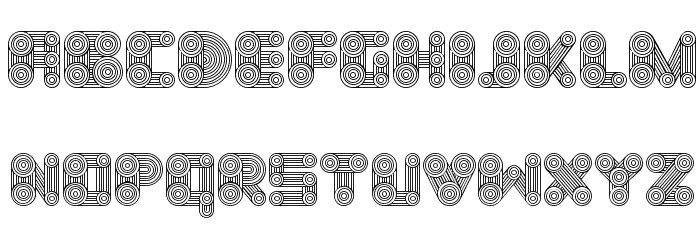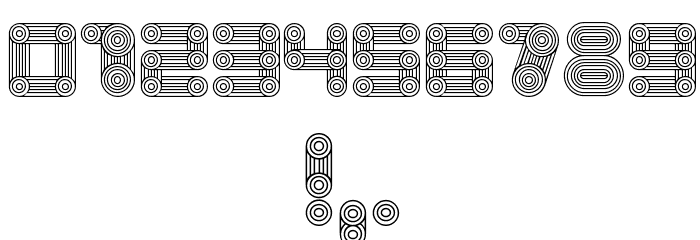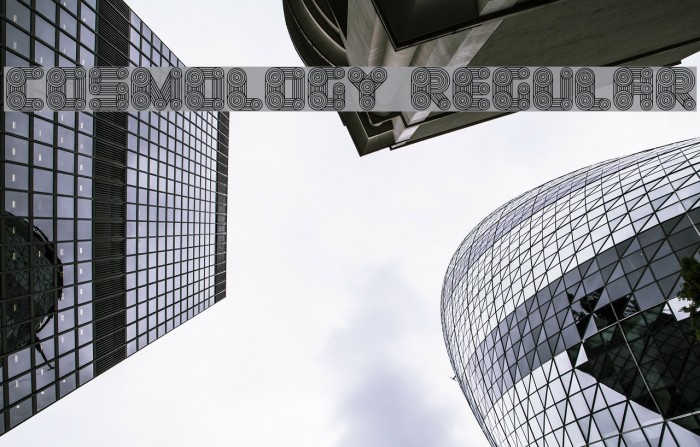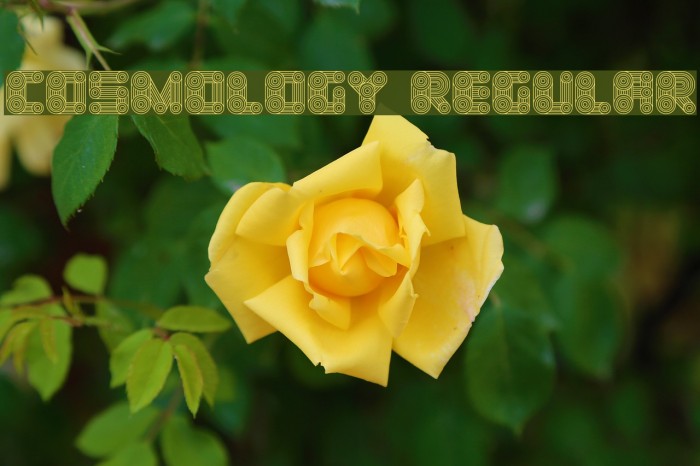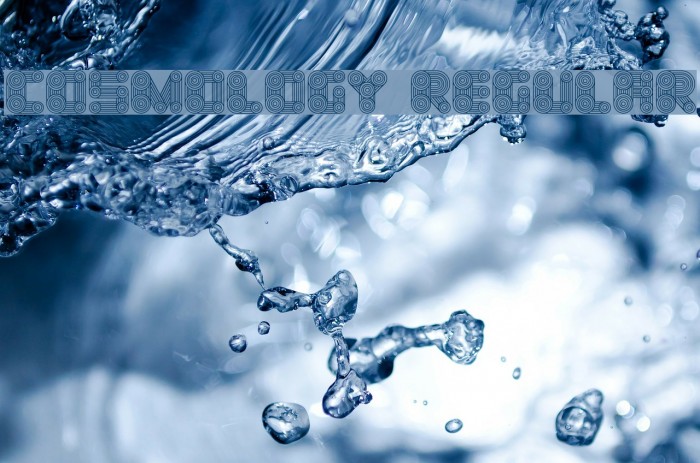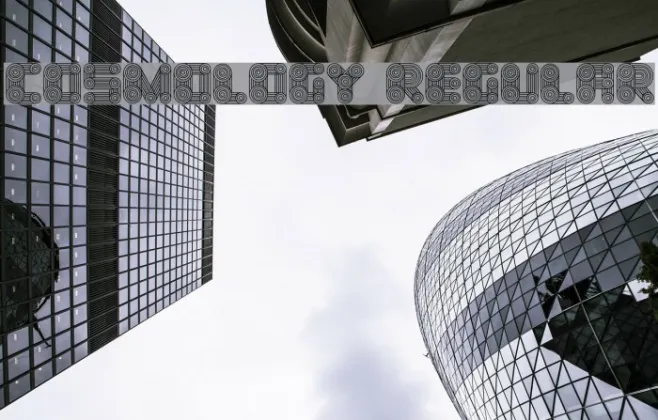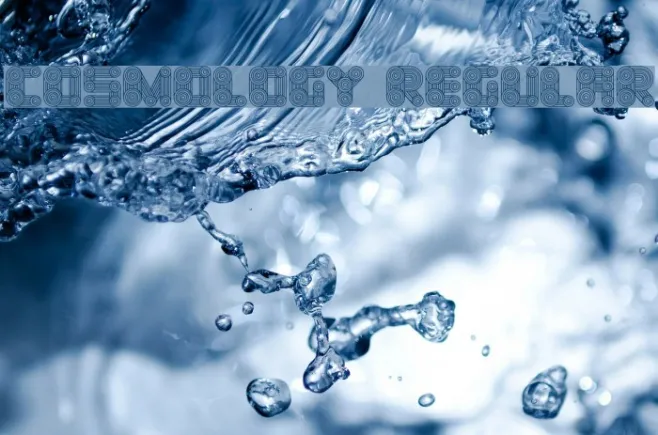
Cosmology Regular Font
This font features a unique and intricate design, characterized by a series of concentric circles that form each letter and number. The geometric pattern gives it a futuristic and digital feel, making it stand out as a decorative typeface. Each character is composed of multiple layers, creating a sense of depth and complexity. The uniformity in the design across all characters ensures a cohesive look, while the circular motifs add a playful and modern twist. This font is ideal for projects that require a bold and eye-catching aesthetic.
A decorative font with concentric circular patterns creating a futuristic look.
- Proposed Projects: Ideal for digital art, posters, album covers, and branding that requires a modern and bold statement.